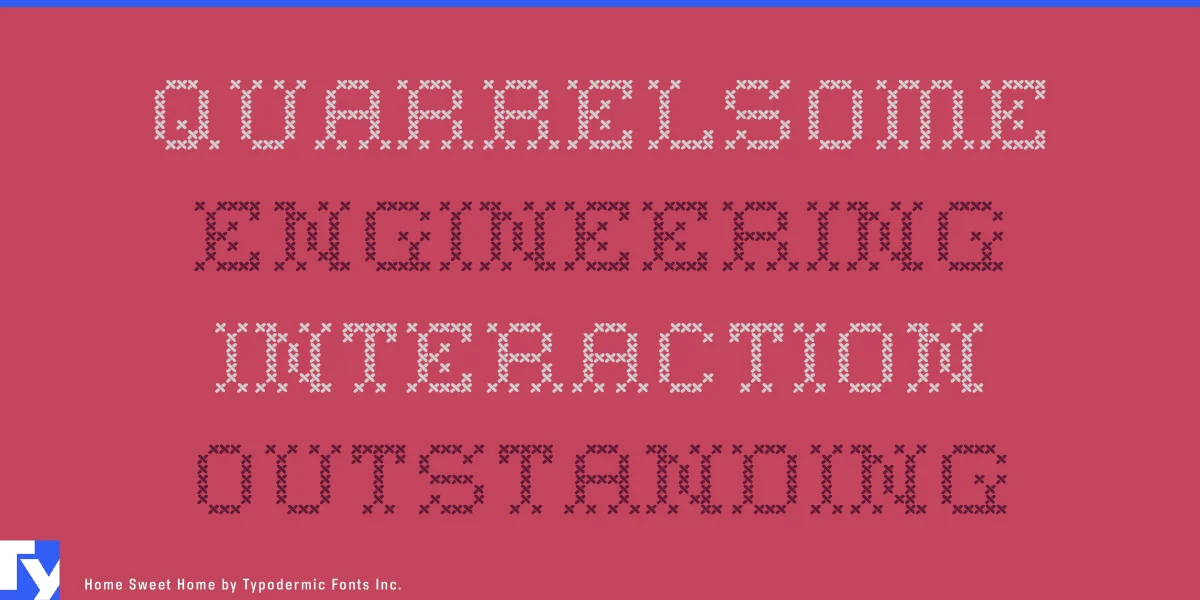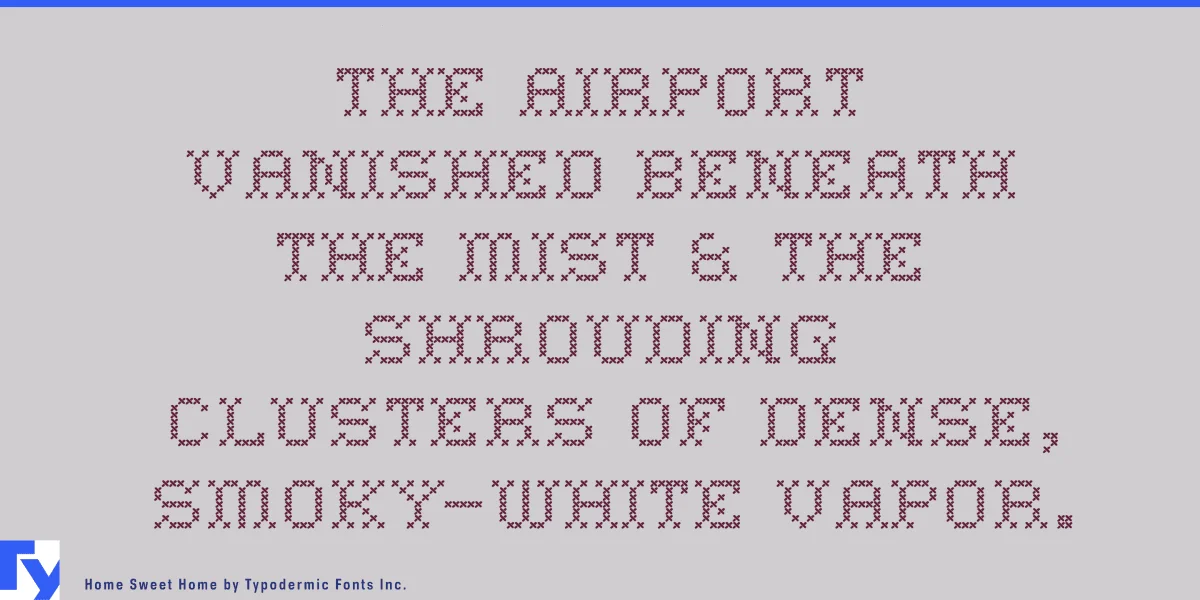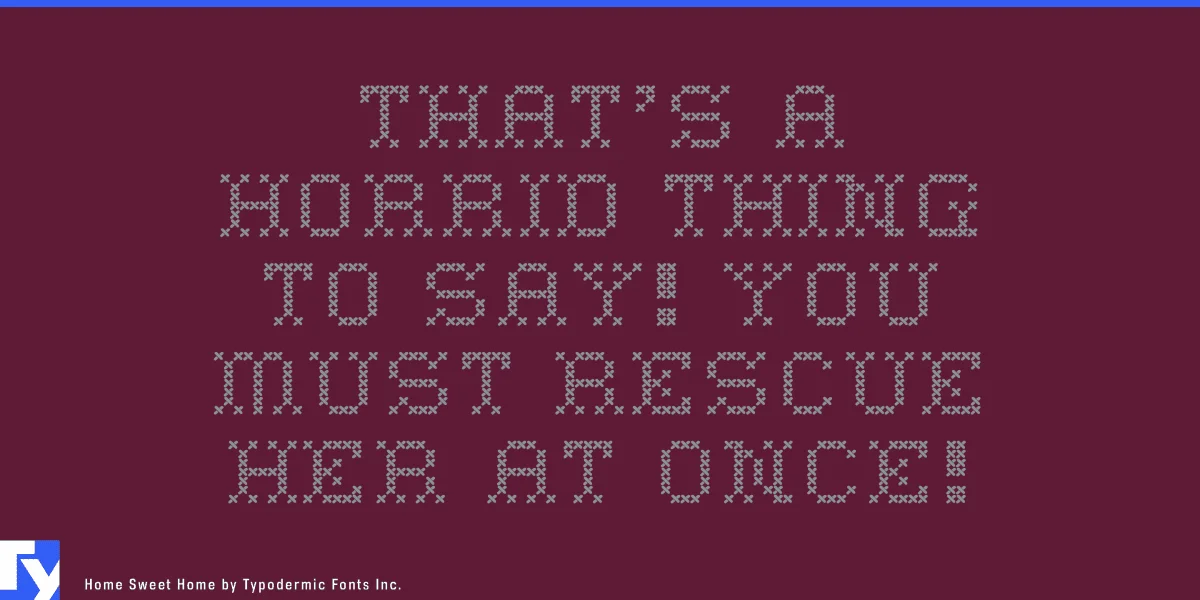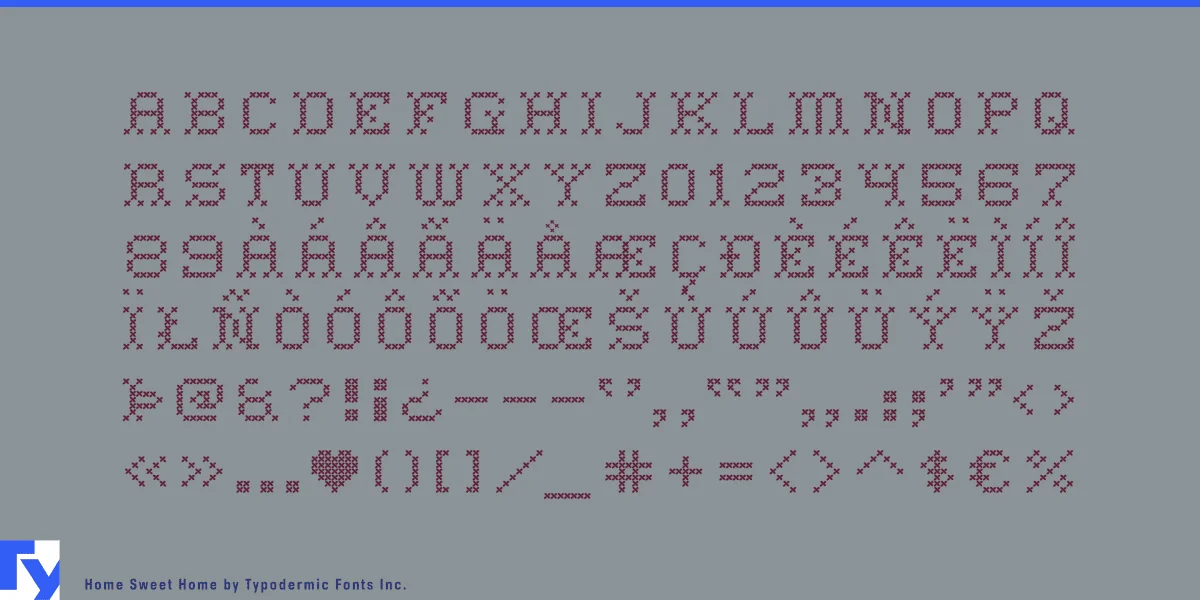
Home Sweet Home is a sweet, nostalgic cross-stitch typeface. This rustic typeface will lend your words a rural, sympathetic appeal. Some Latin-based European writing systems are supported, including the following languages. Afaan Oromo, Afar, Afrikaans, Albanian, Alsatian, Aymara, Basque, Bemba, Bikol, Breton, Cape Verdean, Creole, Catalan, Cebuano, Chamorro, Chavacano, Danish, Dawan, Dholuo, Dutch, English, Estonian, Faroese, Fijian, Filipino, Finnish, French, Frisian, Friulian, Galician, Genoese, German, Guadeloupean Creole, Haitian Creole, Hiligaynon, Icelandic, Ilocano, Indonesian, Irish, Italian, Jamaican, Kaqchikel, Kikongo, Kinyarwanda, Kirundi, Lombard, Low Saxon, Luxembourgish, Makhuwa, Malay, Ndebele, Neapolitan, Norwegian, Novial, Occitan, Papiamento, Piedmontese, Portuguese, Quechua, Rarotongan, Romansh, Sango, Saramaccan, Sardinian, Scottish Gaelic, Shona, Sicilian, Silesian, Slovak, Slovenian, Somali, Sotho, Spanish, Swahili, Swazi, Swedish, Tagalog, Tetum, Tshiluba, Tsonga, Tswana, Tumbuka, Uzbek (Latin), Venetian, Võro, Walloon, Waray-Waray, Wayuu, Xhosa, Yapese, Zapotec Zulu and Zuni.